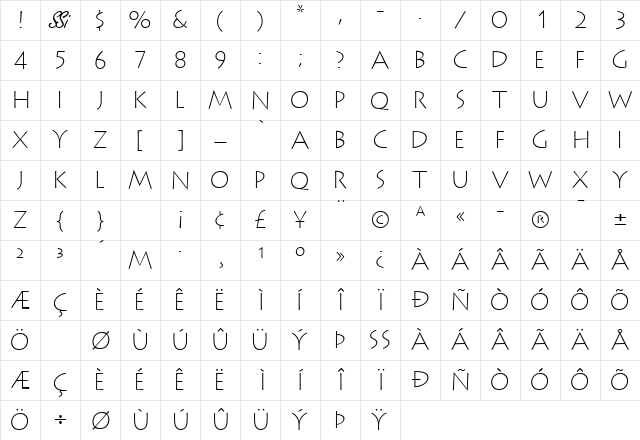
Complete AustereLightCapsSSK Regular glyph index. Displaying only characters natively supported by AustereLightCapsSSK Regular font.
AustereLightCapsSSK is a composed and adaptable typeface that performs quietly and consistently across a wide range of design contexts. Its slender proportions lend an understated elegance to any composition.